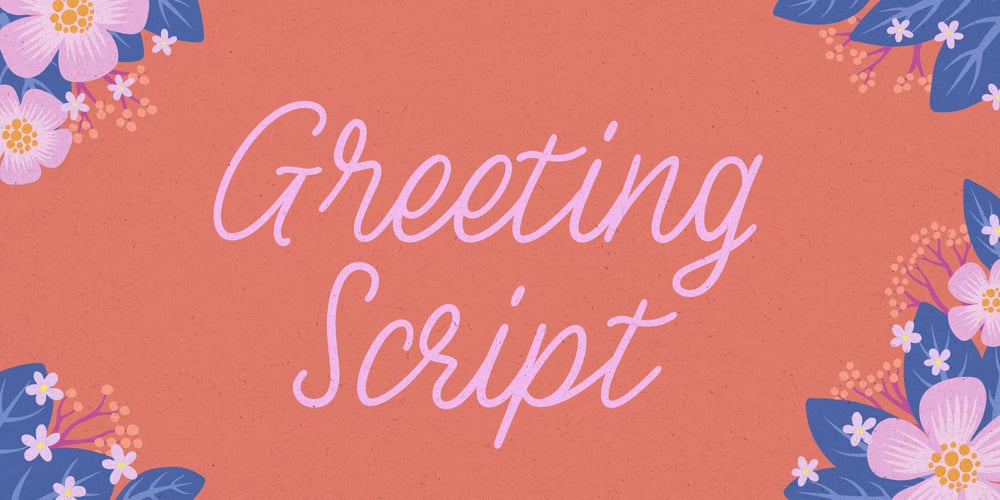
Greeting Script Font Family was designed by Ayça Atalay and published by Ayca Atalay. Greeting Script contains 1 styles and family package options. Greeting Script | A Hand Lettered Script FontGreeting Script is a cute and tidy hand lettered script font. It is perfect for adding text to any illustration work as it preserves its hand drawn quality whilst being legible and neat.